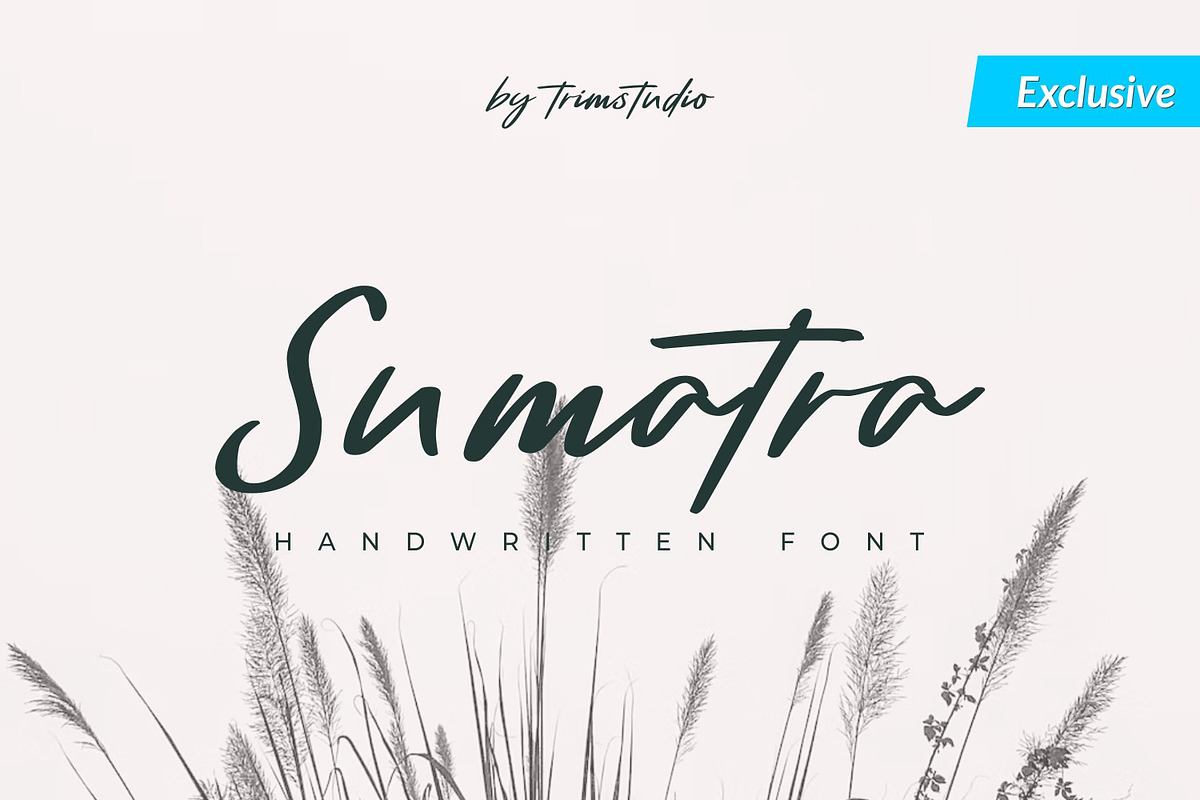
Sumatra - Beauty Handwritten Script Free Download
Sumatra - Beauty Handwritten Script Font Free Download
Elegant, graceful, and full of charm, Sumatra - Beauty Handwritten Script Font Free Download is a stunning script typeface that captures the essence of beautiful, handwritten calligraphy. Perfect for wedding invitations, logos, branding, greeting cards, and social media graphics, this font adds a personal and artistic touch to your designs.
With its smooth, flowing strokes and delicate letterforms, Sumatra brings an air of sophistication and refinement, making it ideal for high-end design projects or anything that needs to convey elegance and creativity.